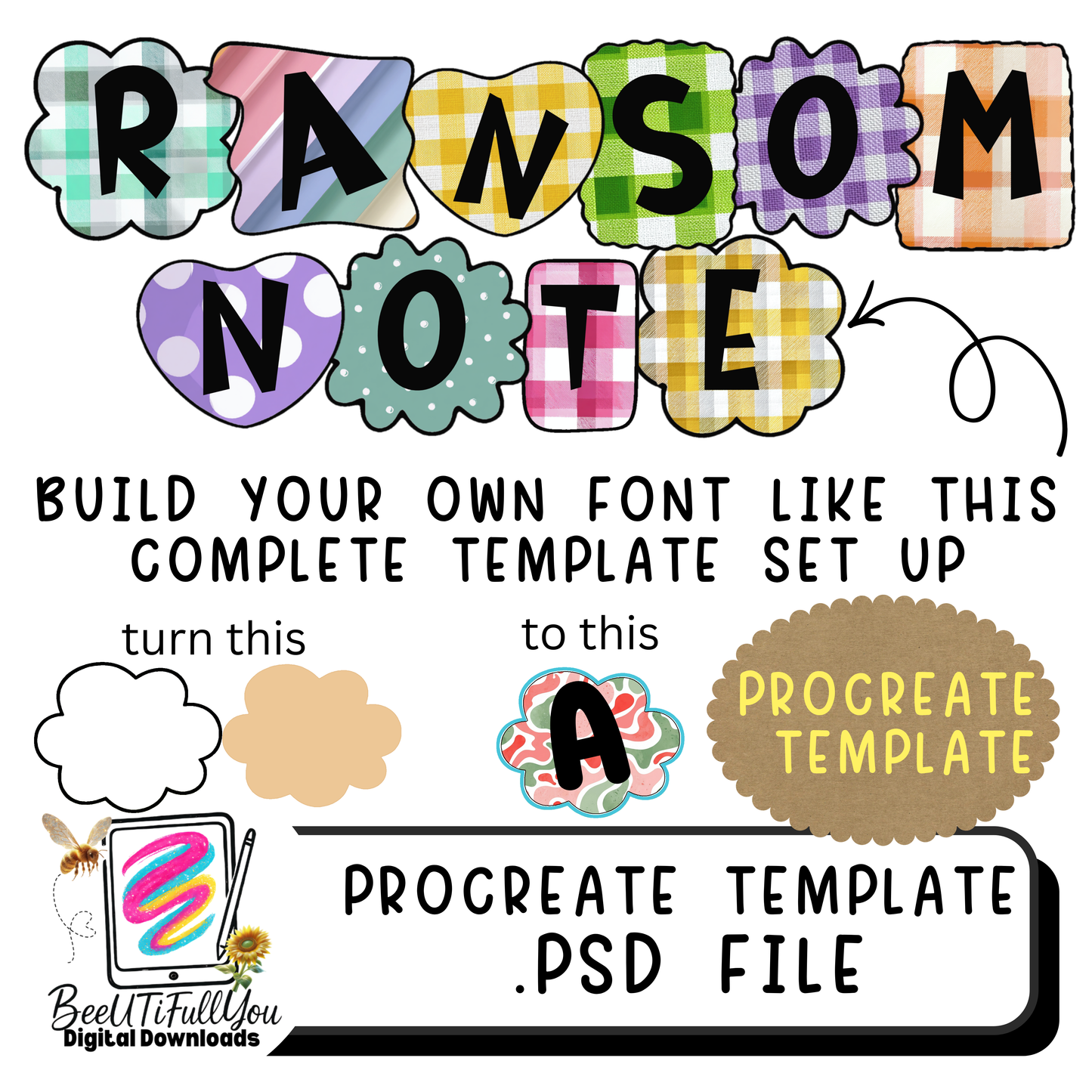
Ransom Note Alphabet Procreate Template | PSD File | Drag & Drop Pattern Font Builder | Commercial Use
Create your own custom ransom note-style alphabet with this complete Procreate template setup! This PSD file makes it SO easy to build a full patterned block letter font — no starting from scratch, no guessing. Just drag, drop, and design!
- Pre-built letter shapes with organized layers
- Drag & drop your own patterns or papers directly into each letter
- Fully editable outline color so you can match any theme or brand
- Chunky, bold blocky letter style — perfect for the ransom note/mixed media aesthetic
🎨 How It Works: Each letter comes set up and ready to go. Drop your favorite digital papers or patterns into the clipping mask layer, swap the outline color to whatever you love, and boom — you've got a completely custom patterned alphabet font in minutes!